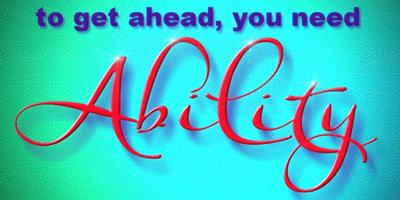
Rialto Script Font is perfect for luxury Italian restaurant branding, Venetian-inspired wedding invitations, high-end fashion campaigns, premium wine labels, exclusive resort marketing, sophisticated travel brochures, artisan food packaging, elegant stationery design, cultural heritage projects, and romantic lifestyle advertising.
What makes Rialto Script Font exciting is its romantic Venetian elegance that captures the timeless sophistication and artistic heritage of Renaissance Italy's most enchanting waterway city. This typeface features graceful script letterforms with flowing curves and refined flourishes that evoke the romantic gondola rides and architectural grandeur of Venice's famous canals. The font's luxurious personality and Old World charm make it perfect for brands seeking to convey romance, cultural sophistication, and Mediterranean luxury in their communications.
Rialto Script Font family includes elegant stylistic alternatives, ornamental swashes, and decorative ligatures that enhance its romantic appeal while providing exceptional design versatility. The font features connecting characters, flourish options, and italic variations that create beautiful flowing text perfect for luxury and romantic applications.
Luxury hospitality brands and romantic lifestyle companies consistently choose Rialto Script Font Free Download for projects requiring sophisticated European elegance and romantic appeal. The font's enchanting character excels in applications targeting affluent travelers, romance enthusiasts, and luxury consumers who appreciate authentic cultural sophistication. Whether you're designing for luxury travel destinations, premium Italian brands, or romantic event planning, this captivating typeface delivers the Venetian romance and Old World elegance that creates emotional connections with consumers seeking authentic luxury experiences and timeless romantic beauty.